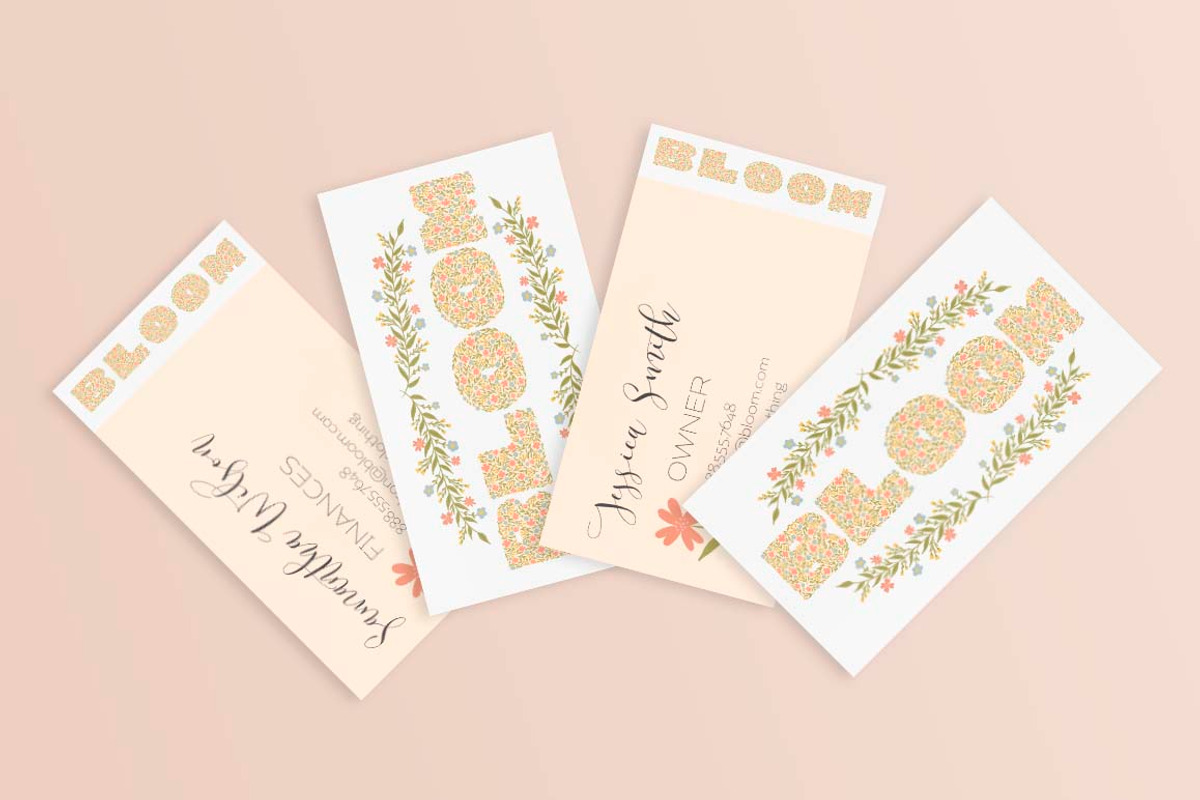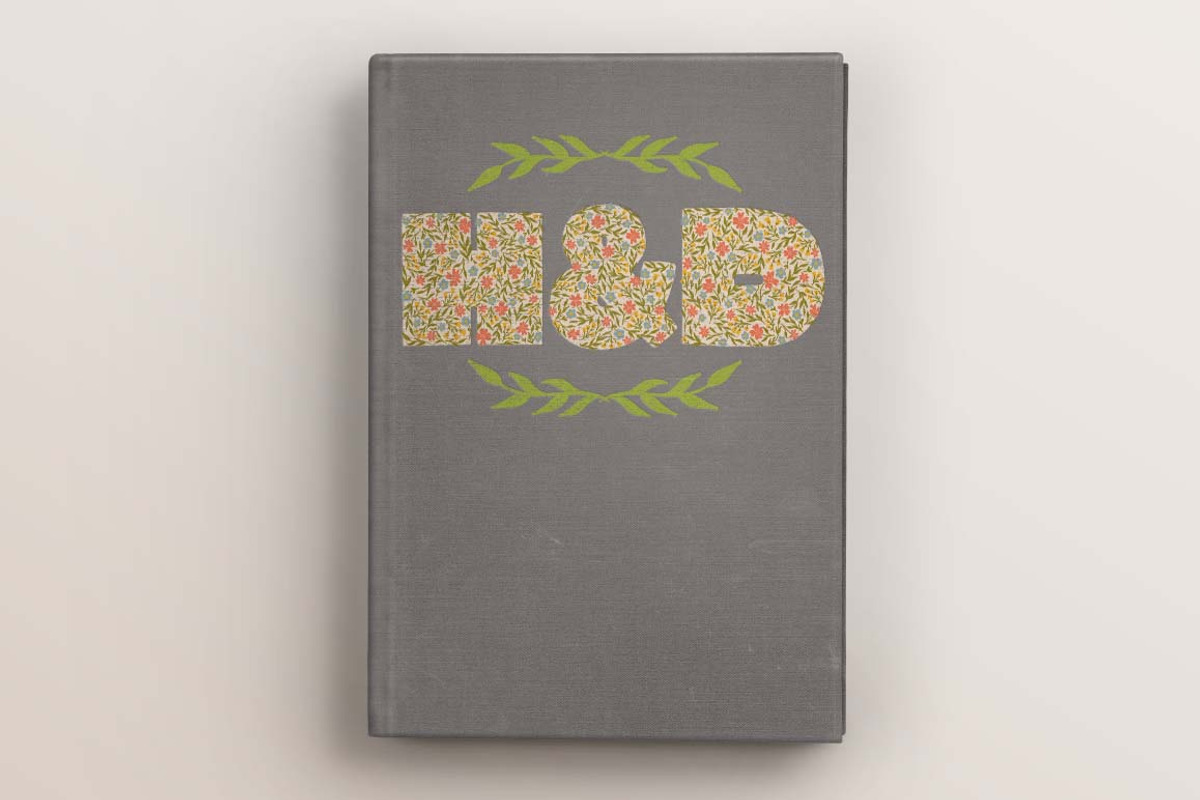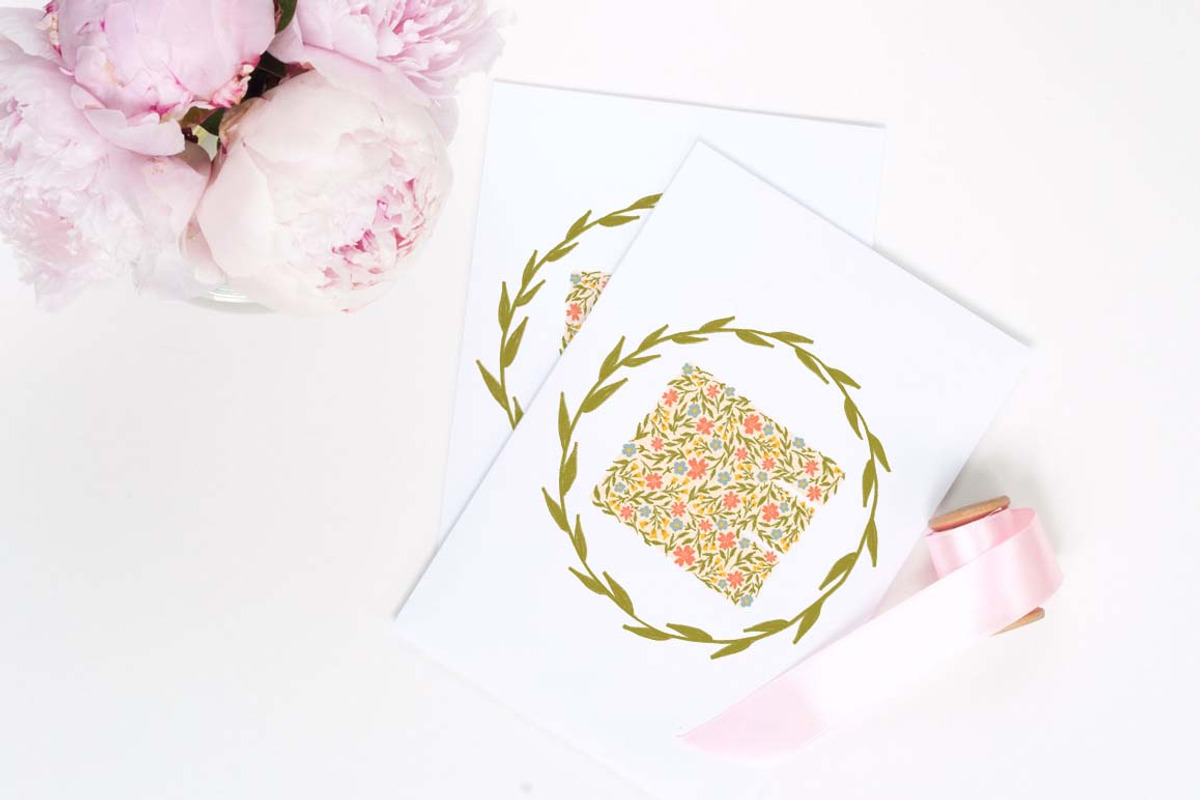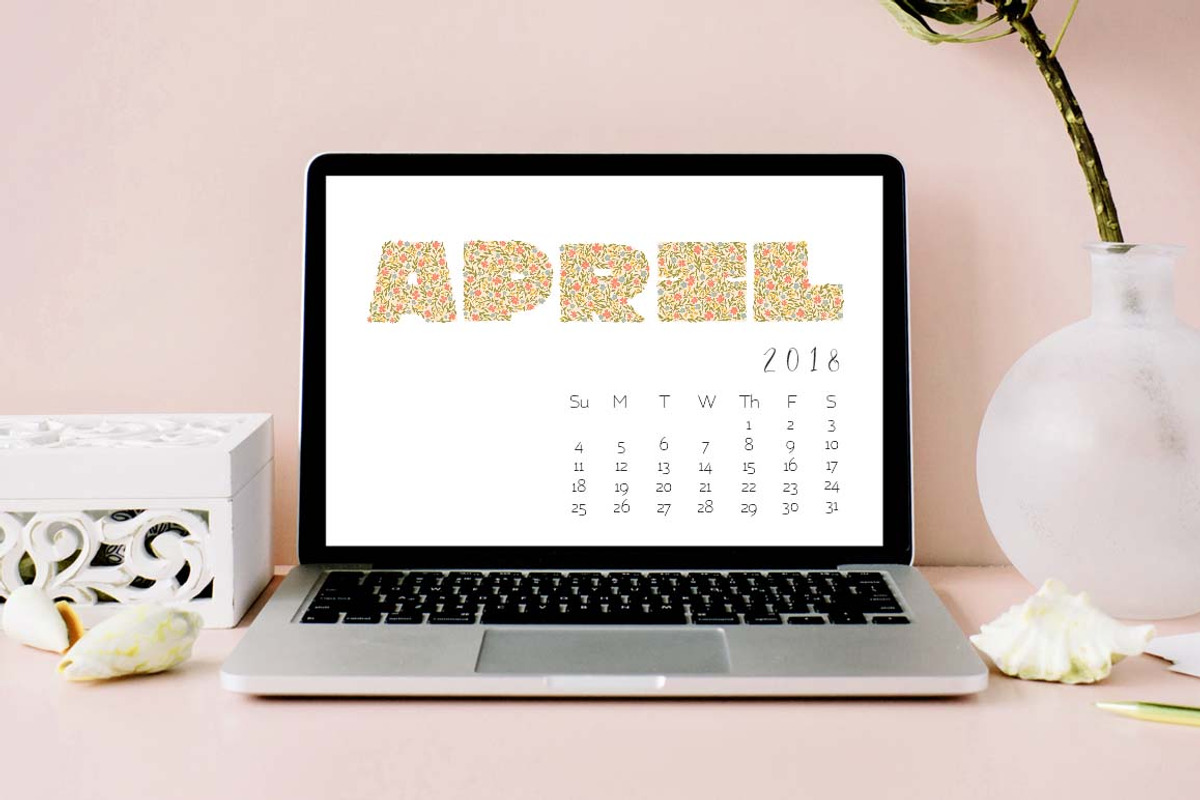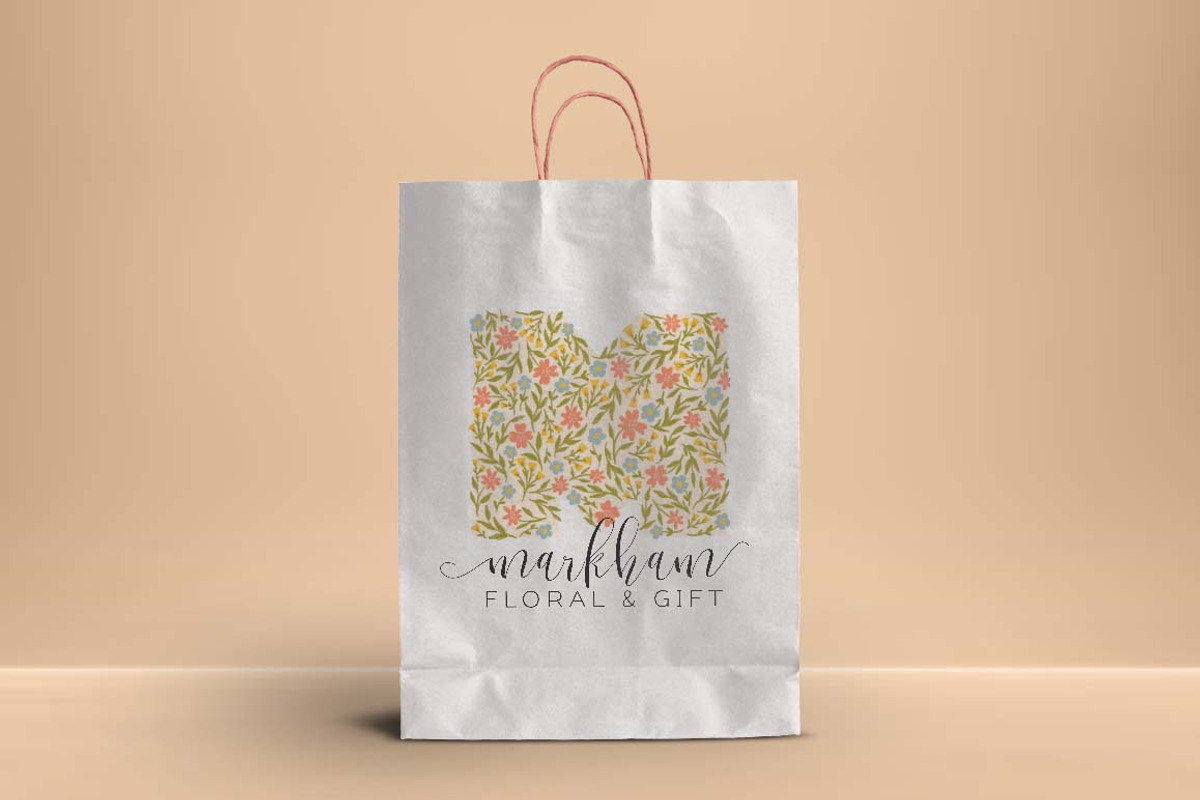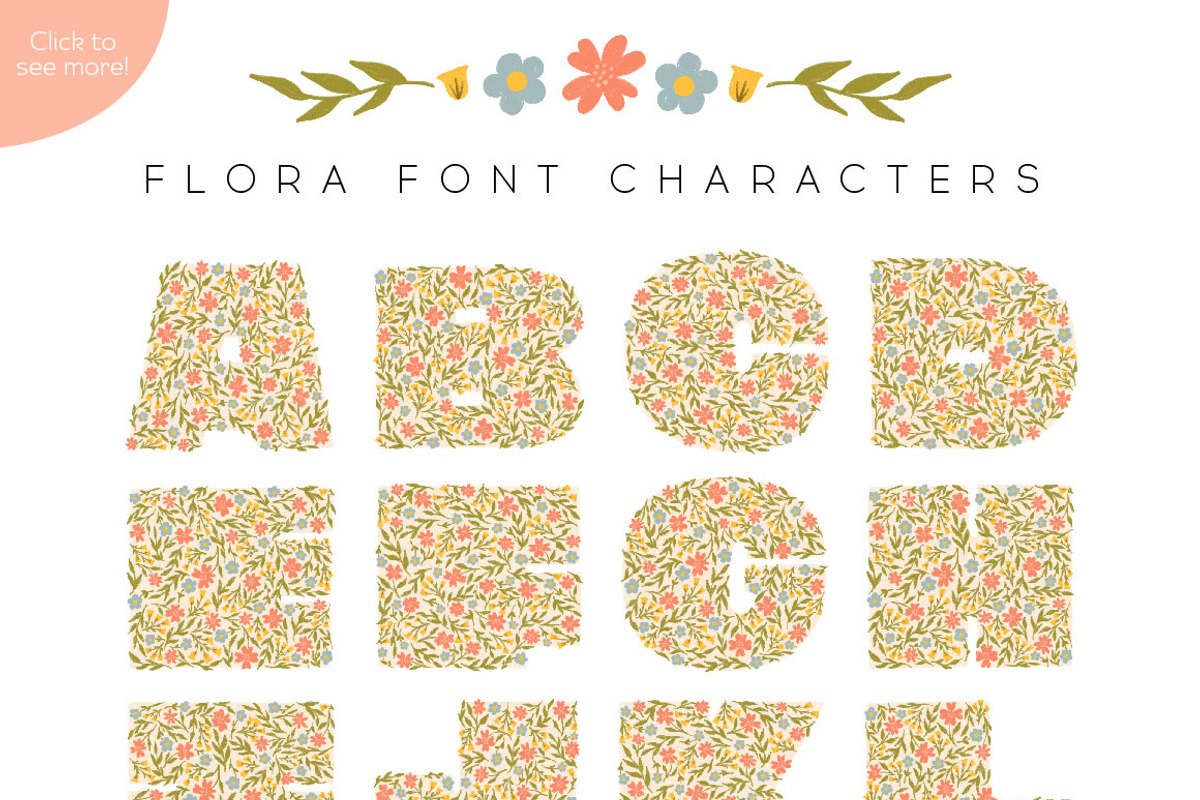
Flora Color Display Font
I am a big lover of floral patterns! I want flowers on everything, even in the winter. They are just so happy! And this new font makes me happy too. The delicate florals swooping around inside the letterforms makes me want to monogram everything!
Full set of upper case letters
Flora also comes with 15 hand drawn elements that perfectly match the floral pattern inside of the font. Use these elements with the font to help take your branding and designs to the next level!